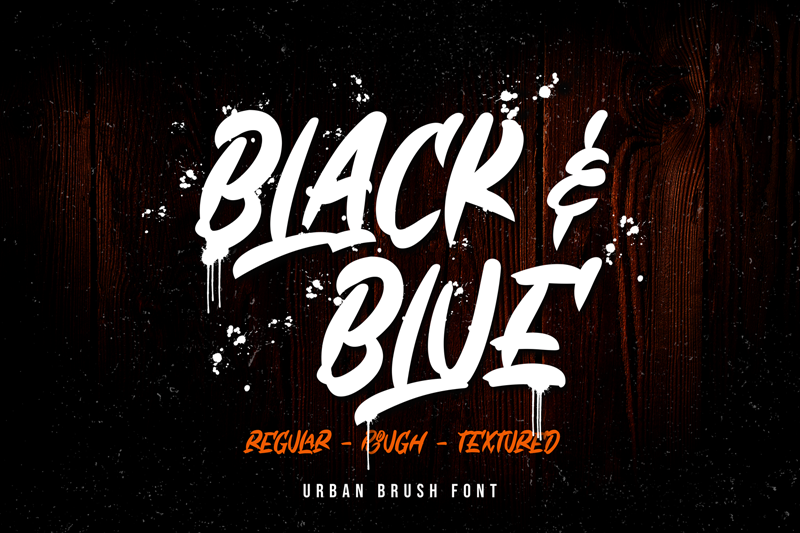
Preview and download Black & Blue Font. Created by Ibnu Utomo in Script Brush styles with Free for personal use license.
DETAILS Black & Blue! A brush font with 3 styles, regular (clean), rough, and textured. Black & Blue font is ideal for logos, apparel, T-shirt, Hoodie, quotes, product packaging, or anything which needs a typographic turbo-boost. Whats Include? 1. All Uppercase characters 2. Supports international languages 3. Numerals & punctuations, stylistic alternates, and ligatures 4. Accessible in the Adobe Illustrator Glyphs panel, or under Stylistic Alternates in the Adobe Photoshop OpenType menu, Adobe InDesign, Corel Draw, even work on Microsoft Word. 5. TTF and OTF files 6. Multilingual support. Please message me if you're unsure of any language support. Full version and commercial licence: https://www.creativefabrica.com/designer/omotu/ref/144864/ Thanks for looking, and I hope you enjoy it! Please don't hesitate to drop me a message if you have any issues or queries. Omotu Studio ibnu.blawong2@gmail.com |